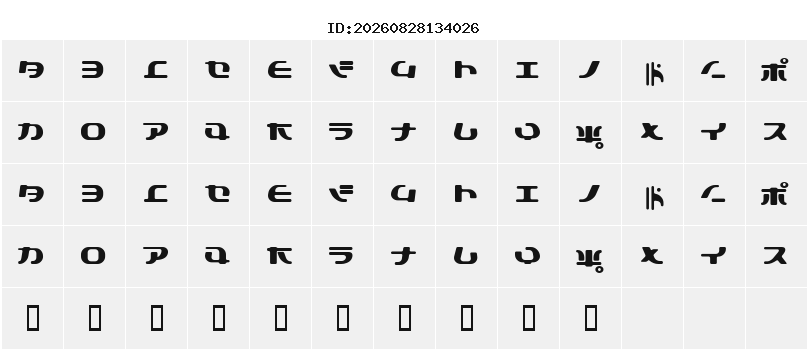
TokyoSoft Preview
• Font Name: TokyoSoft
• Font ID: TokyoSoft
• Full Font Name: TokyoSoft
• Version: Macromedia Fontographer 4.1 21/09/98
• PostScript Name: TokyoSoft
• Character Count: 53
• Copyright: ©1998 - Isis Fonts - John Cosgriff
About TokyoSoft.ttf
TokyoSoft.ttf is a modern, elegant sans-serif font designed for ultimate readability and visual harmony. Perfect for branding, headlines, web design, and print materials.